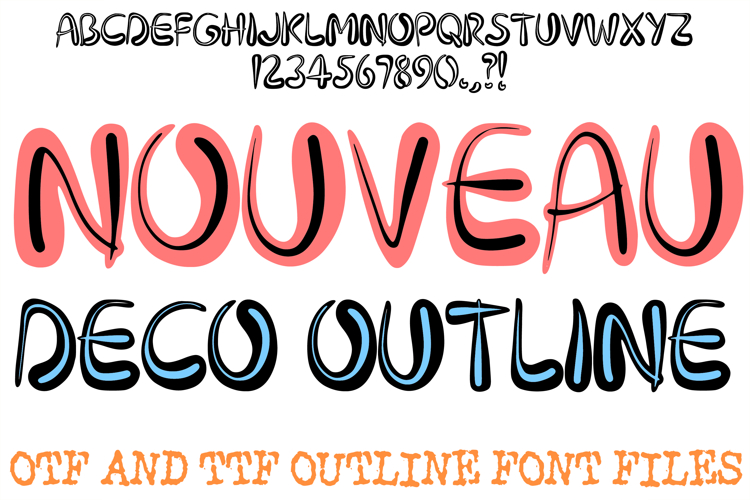
Nouveau Deco Outline Font Boho Written Lettering ABC OTF
The Nouveau Deco Outline Font is a sophisticated display lettering set that masterfully blends the organic, swirling elegance of Art Nouveau with the bold, high-contrast structural elements of Art Deco. Each character is hand-drawn with a signature "echo" or double-outline detail that creates an instant sense of depth, reflection, and high-fashion glamour. It is the perfect choice for luxury boutique branding, modern boho wedding stationery, upscale packaging, and artistic social media layouts.
The combination of weighted, liquid-like silhouettes and delicate tapering flourishes gives your text a professional, artisan-crafted aesthetic. Whether you are designing a logo for a high-end salon, creating custom gold-foil stickers, or working on elegant home decor, the Nouveau Deco Outline Font provides a touch of effortless, vintage-inspired charm.
Sophisticated Echo Outline: The unique inner-line detailing adds a 3D, mirrored effect that makes every letter pop.
Artistic "Thick & Thin" Contrast: Dramatic variation in stroke weights provides a rhythmic, calligraphic visual appeal.
Flowing Organic Curves: Every character features smooth, liquid motion and elegant swirls that celebrate natural forms.